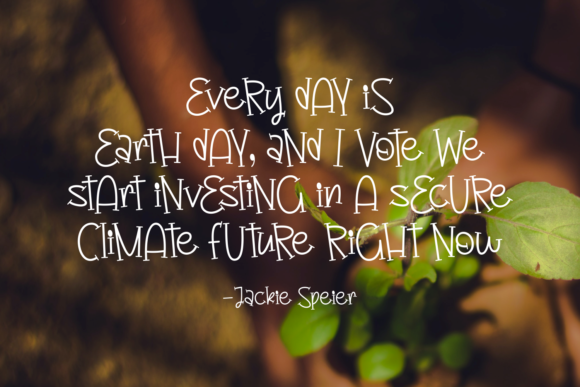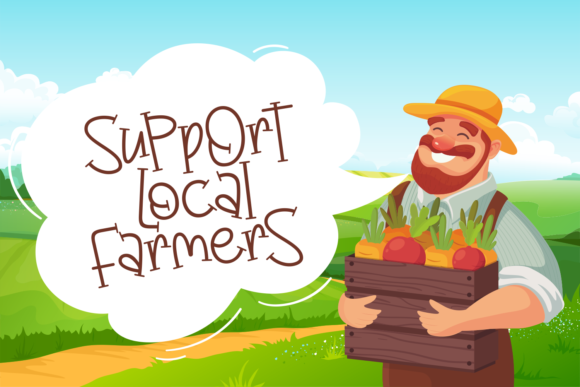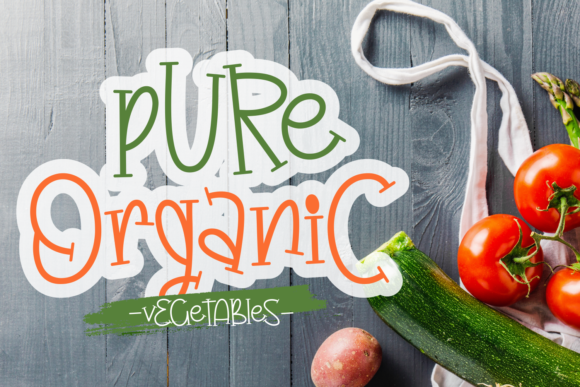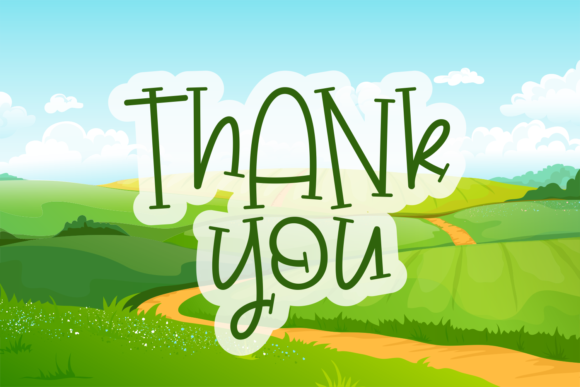
The Perfect Harvest for Your Next Design Project
Have you ever sat in front of your computer, staring blankly at a blank document, trying to conjure up the perfect font to match your creative vision? I know I have. And then, like a ray of sunshine on a cloudy day, it hits you – the perfect font that brings your design to life. For designers, finding the right font can be a game-changer, and today, I’m excited to introduce you to a new addition to your font family: the Fun Farming Font.
This joyful and friendly display font is the perfect blend of quirky charm and versatility. Whether you’re working on a project that requires a touch of whimsy or a more playful approach, the Fun Farming Font is sure to bring a smile to your face. Its wide range of applications makes it a valuable addition to any designer’s toolkit, and its unique personality is sure to make your designs stand out from the crowd.
Fun Farming Font Key Features
- Font Family: A unique, custom-designed font family specifically tailored for a “fun farming” theme, with multiple styles and weights available.
- Unique Characteristics: Includes custom-designed glyphs and characters, such as farm-themed icons and symbols, to add a touch of personality to designs.
Designer Review: Fun Farming Font
I recently had the chance to work with the Fun Farming Font, and I’m excited to share my honest thoughts on this unique typeface.
- Playful feel**: Fun Farming Font has a lighthearted and carefree vibe that’s perfect for kid-friendly content or creative projects.
- Customizable**: The font comes in a range of styles and weights, making it easy to mix and match to suit your design needs.
- Good legibility**: Even at smaller sizes, the font remains clear and easy to read.
- Not ideal for formal content**: While the font is fun and playful, it may not be suitable for more formal or professional projects.
- May not be suitable for small text**: The font’s irregular shape and loose connections between letters can make it difficult to read at very small sizes.
Overall, I think the Fun Farming Font is a great choice for designers looking to add a touch of whimsy to their projects. With its playful feel and customizable options, it’s a great addition to any design toolkit. However, it may not be the best choice for formal or complex content.
Fun Farming Font: A Practical Application Guide
To get the most out of the Fun Farming Font, experiment with different font sizes, colors, and styles to create a unique and eye-catching design. You can also use the font in combination with other design elements to add visual interest.
The Fun Farming Font is ideal for designs related to agriculture, farming, and rural life, such as logos, business cards, and marketing materials. It’s also great for creating playful and whimsical designs for social media and advertising campaigns.
Alternatives to Fun Farming Font for Designers
Great Vibes is a modern, handwritten font perfect for creating a casual and friendly atmosphere in your designs. It’s ideal for use in social media graphics, advertisements, and packaging. Great Vibes is a bit more polished and refined compared to Fun Farming Font, making it suitable for a wider range of applications.
Pacifico is a beautiful, elegant font that evokes the feeling of a tropical paradise. It’s perfect for use in travel brochures, restaurant menus, and other designs where you want to convey a sense of relaxation and luxury. Pacifico has a more refined and sophisticated look compared to Fun Farming Font, making it suitable for more formal applications.